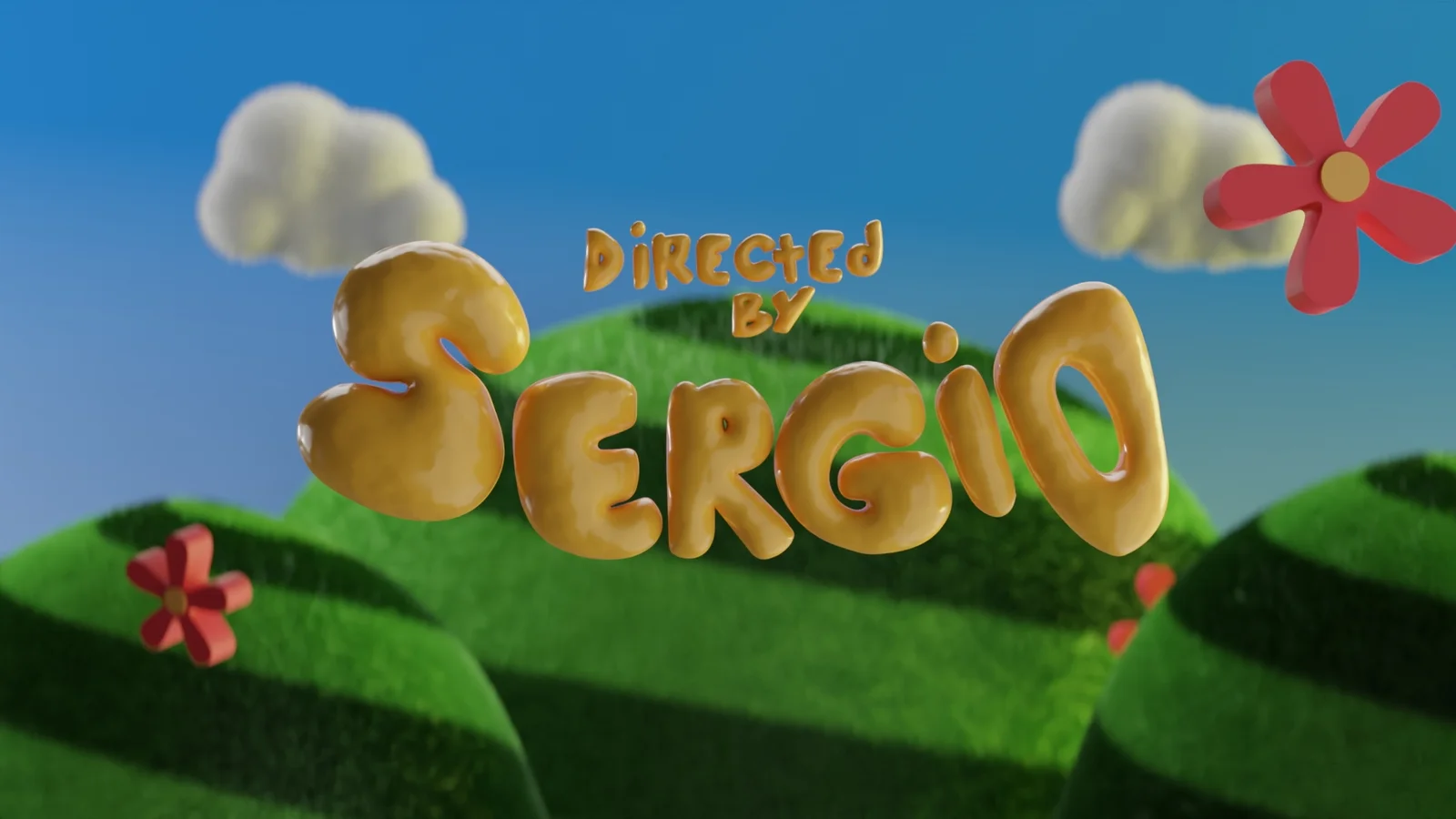
Happy Koda Font is a playful, hand-drawn typeface designed for graphic design and 3D rendering. The package includes a standard OTF font file for 2D typographic workflows, alongside an OBJ file containing the text pre-inflated into 3D geometry. This allows users to easily incorporate volumetric, bubble-style lettering into their scenes without needing to manually extrude or inflate the text.